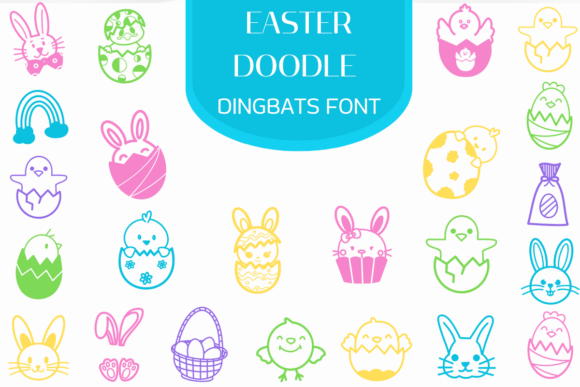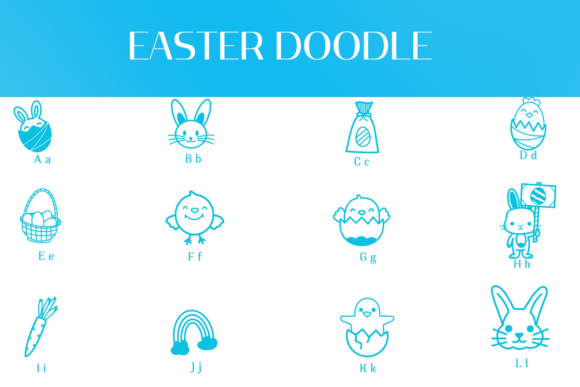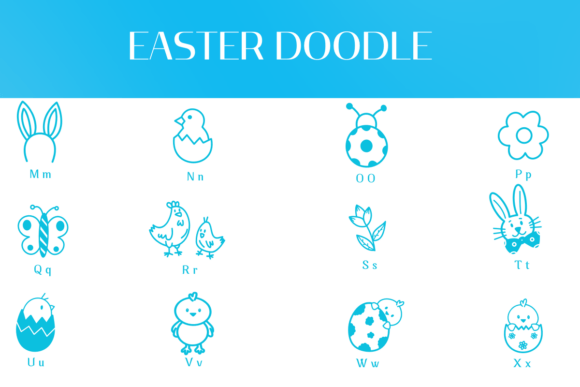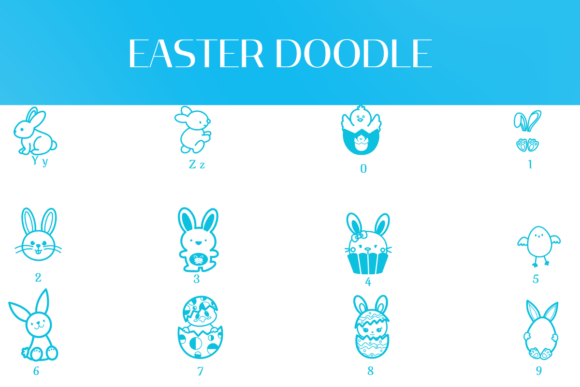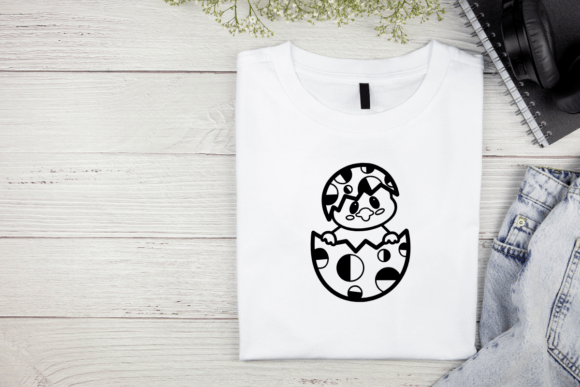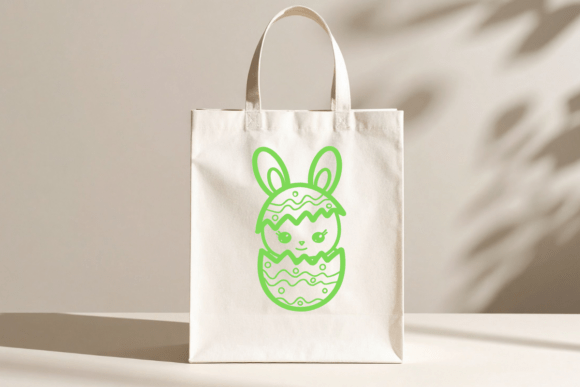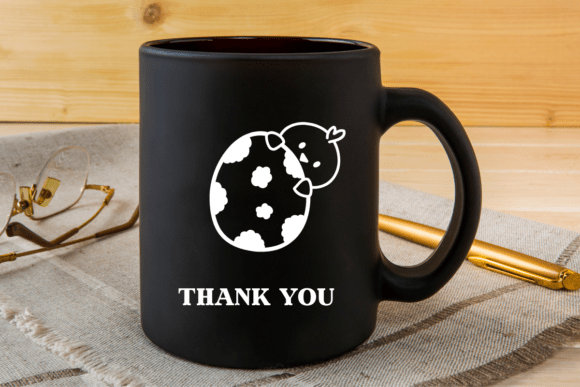
Adding Some Easter Cheer to Your Designs
As a designer, you’ve probably had that moment when you’re working on a project and suddenly, a spark of creativity hits you. It’s like a burst of inspiration that makes you think, ‘Ah-ha! This is it!’ For me, that moment often comes when I’m brainstorming ideas for a new project, and I stumble upon a unique font that sets my imagination ablaze.
One such font that never fails to put a smile on my face is the Easter Doodle Font. This fun dingbats font is perfect for adding a playful touch to your designs. Whether you’re creating Easter-themed artwork, greeting cards, or social media graphics, Easter Doodle Font is sure to bring a dash of whimsy and charm to your work.
As a valuable addition to any designer’s toolkit, the Easter Doodle Font offers endless creative possibilities. With its adorable Easter-themed doodles, you can add a personal touch to your designs, making them truly special and memorable. So, why not give it a try and see the magic it can bring to your next project?
Easter Doodle Font Key Features
- Font Style: Whimsical, Hand-Drawn Easter-themed font
- Character Set: Includes uppercase and lowercase letters, numbers, punctuation, and special characters
- Unique Characteristics: Features intricate, hand-drawn Easter egg-inspired designs, perfect for adding a touch of whimsy to your designs
Easter Doodle Font Review
I’ve had the chance to work with the Easter Doodle Font, and I’m here to give you my honest review. Overall, I think this font has some great qualities that make it perfect for certain projects, but it also has some limitations that might hold it back.
- Whimsical charm: The Easter Doodle Font has a playful, hand-drawn feel that’s perfect for Easter-themed projects or anything that needs a touch of whimsy.
- Unique characters: Each character in the font has a distinct, hand-crafted feel that makes it stand out from more generic fonts.
- Fun flourishes: The font includes some fun flourishes and decorations that can add an extra layer of personality to your designs.
- Limited versatility: The Easter Doodle Font is very much a niche font, and it might not be suitable for more formal or professional projects.
- Small size limitations: At smaller font sizes, the characters can become difficult to read and might lose some of their charm.
- Lack of international characters: The font seems to be missing some international characters, which could be a problem for designers working on projects that require a broader character set.
Overall, I think the Easter Doodle Font is a great choice for designers who need a fun, whimsical font for Easter-themed projects or anything that requires a touch of personality. However, it might not be the best choice for more formal or professional projects, or for designers who need a font with more versatility and international support.
The Easter Doodle Font is perfect for creating whimsical and playful designs, such as:
- Invitations and party decorations.
- Children’s birthday cards and gifts.
- Spring-themed social media graphics and advertisements.
Remember to experiment with different font sizes, colors, and arrangements to get the most out of this unique and charming font.